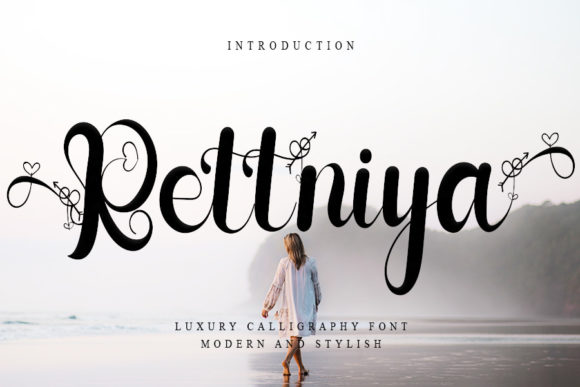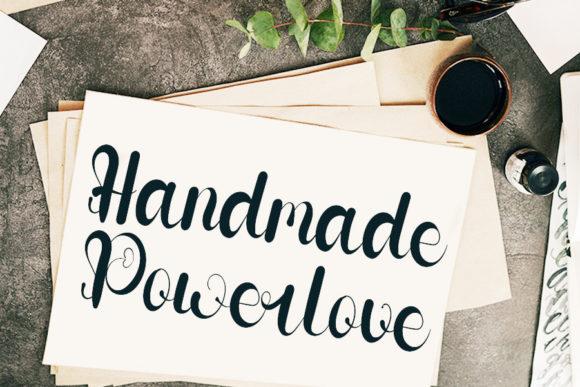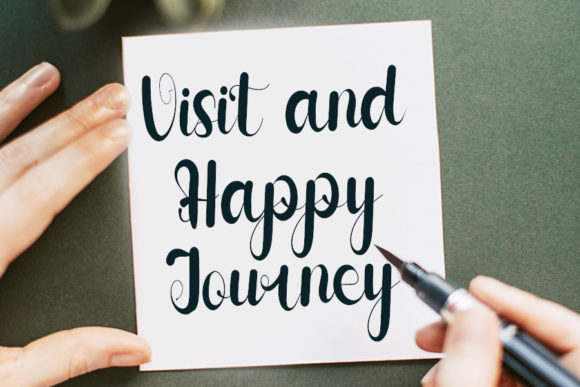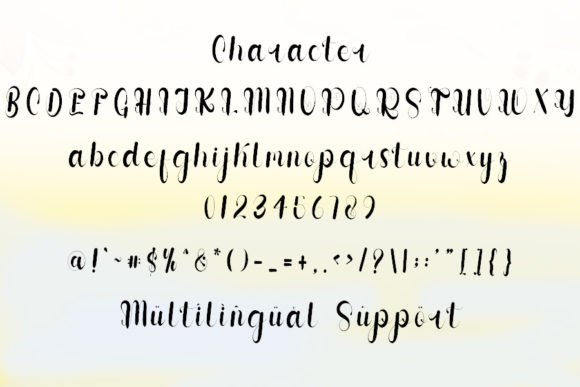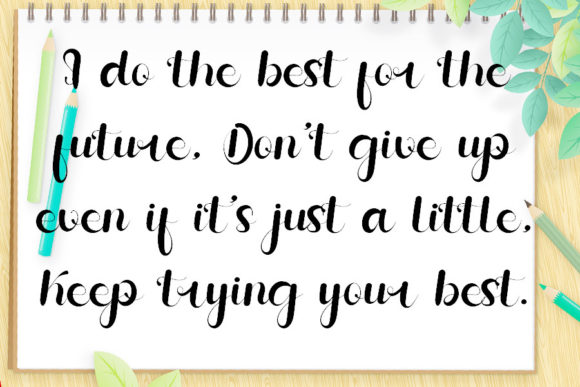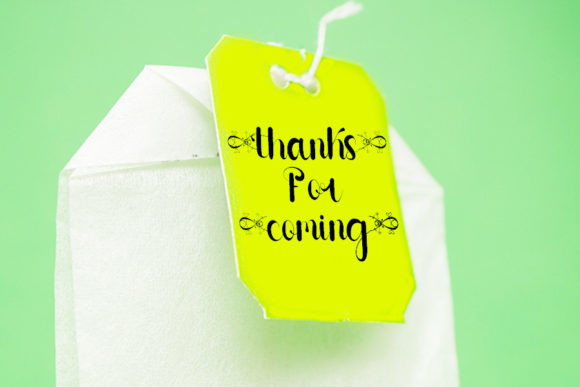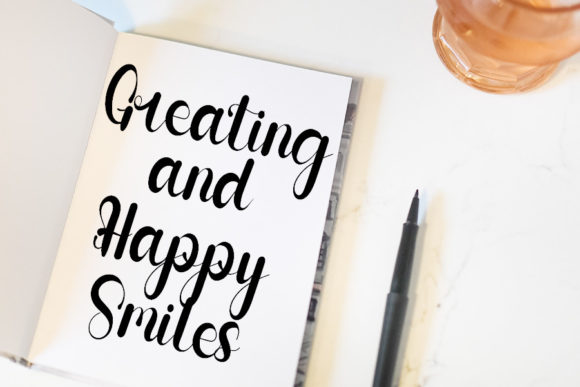
Rettniya Font
Rettniya is a charming handwritten font that exudes playfulness and natural elegance. With its well-rounded and organic letterforms, it adds a delightful touch to any creative project.
The font’s playful and whimsical style makes it perfect for a variety of design applications. Whether you’re designing greeting cards, invitations, logos, branding materials, or social media graphics, Rettniya adds a touch of personality and character to your designs.
The rounded and smooth curves of Rettniya give it a friendly and approachable vibe. It evokes a sense of warmth and authenticity, making it suitable for a wide range of themes and purposes. From children’s books to feminine branding, Rettniya adapts beautifully to different contexts.
One of the standout features of Rettniya is its PUA encoding. This means you have easy access to all the glyphs and swashes available in the font. The extensive character set and decorative elements allow you to add extra flair and creativity to your designs, making them truly unique.
Whether you’re looking to create hand-lettered quotes, playful headlines, or personalized branding, Rettniya offers a versatile and charming solution. Its natural and flowing strokes capture the essence of handwritten lettering, adding a sense of authenticity and craftsmanship to your designs.
In summary, Rettniya is a charming handwritten font that brings a playful and natural feel to your creations. Its well-rounded letterforms and PUA encoding provide you with the tools to add a touch of personality and creativity to your designs. Embrace the delightful charm of Rettniya and let it elevate your projects to new heights.